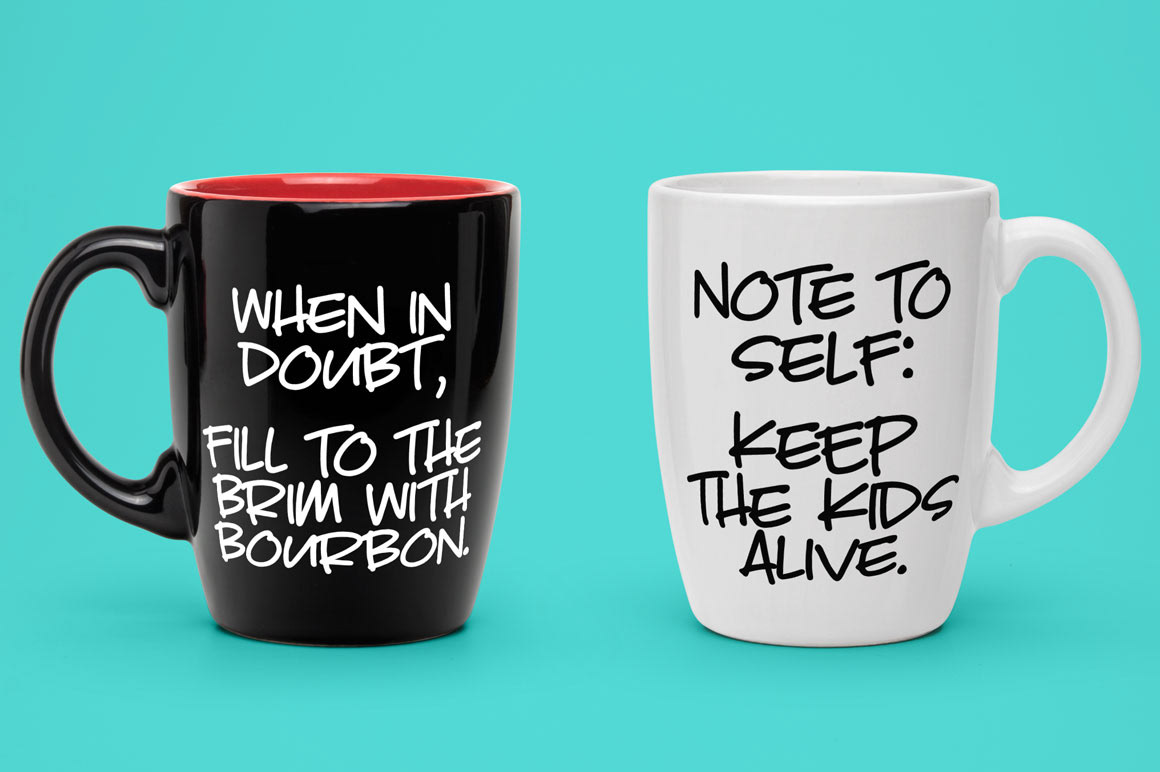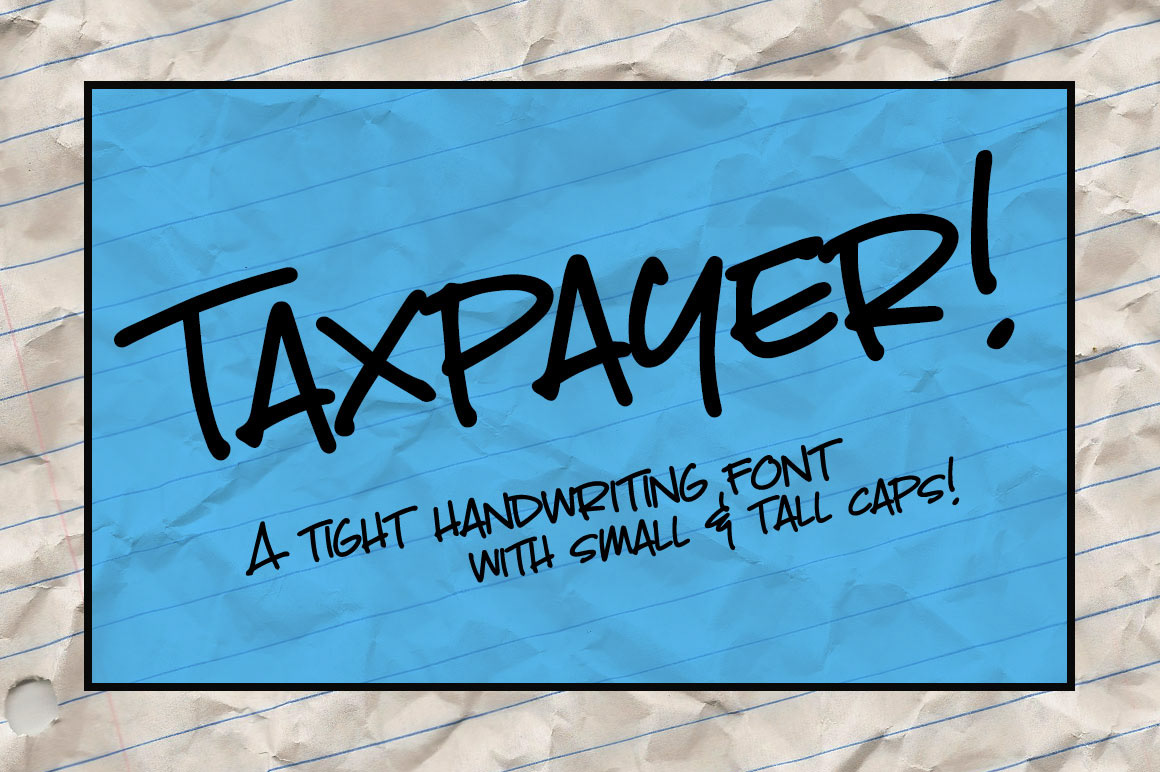
So even though we call them “quarterly taxes,” here in the USA the quarters aren’t even. Q1 is three months, then Q2 is only two months. (Followed by a three-month Q3, and a four-month Q4. Why? It’s complicated, as all good tax issues are.)
Due to the timing weirdness, I’ll often post a picture of my outgoing tax payment envelopes as a reminder to quarterly-paying friends that yet another deadline is near. And more than one person has commented that I should make a font out of the handwriting I use on outgoing mail.
So, here it is! This is very close to my actual handwriting, especially when I’m addressing an envelope. I use all-caps, but I use taller caps as the “uppercase” and shorter caps as the “lowercase.”
Taxpayer contains all of the usual stuff (A-Z, a-z, 0-9, plenty of punctuation), plus over 300 extended Latin characters for language support. And I’ve included 15 double-letter ligatures for the short (lowercase) caps, to add to the hand-written look. And every character has been cleaned up and smoothed a bit, to make it easy to use for both print and cutting machines!